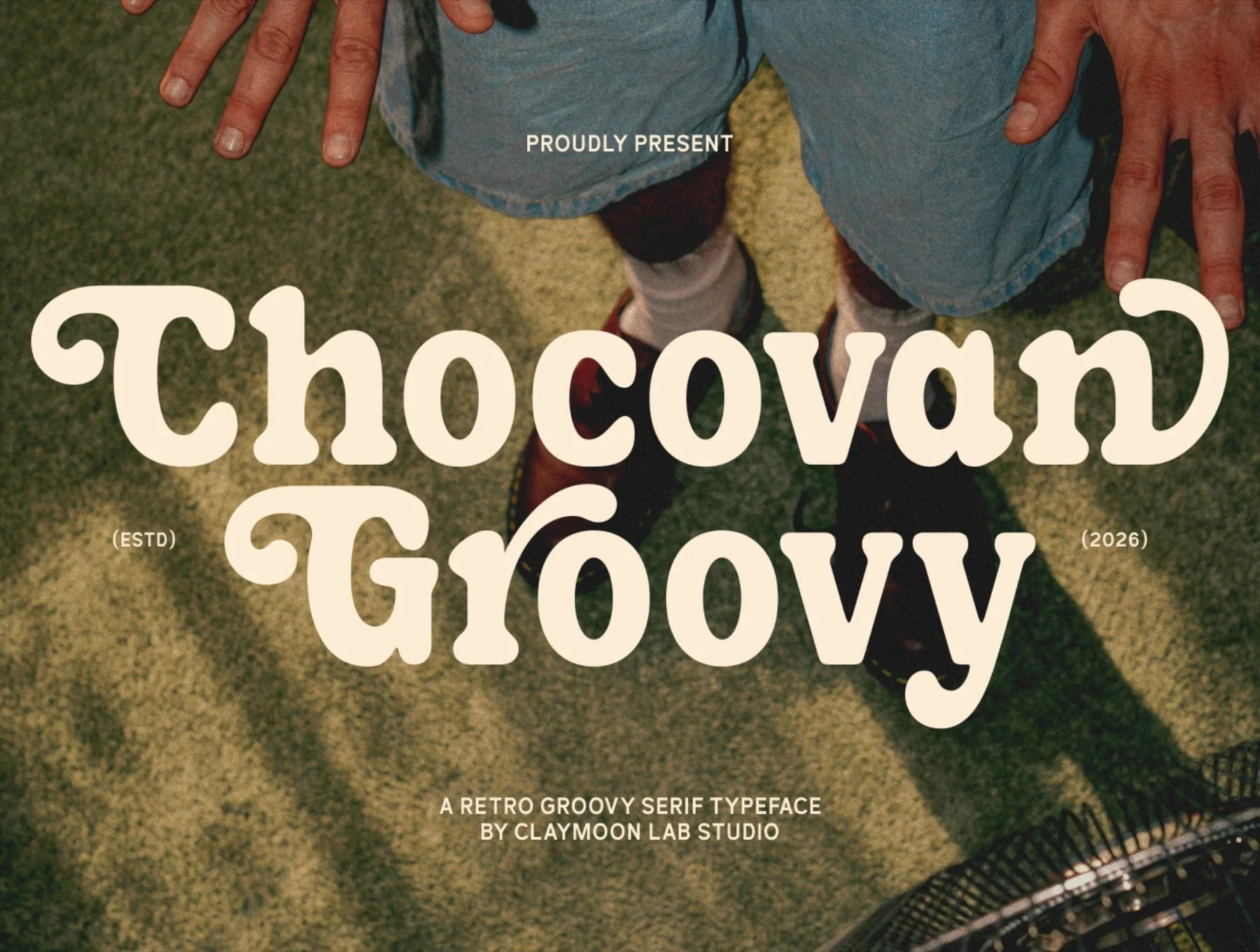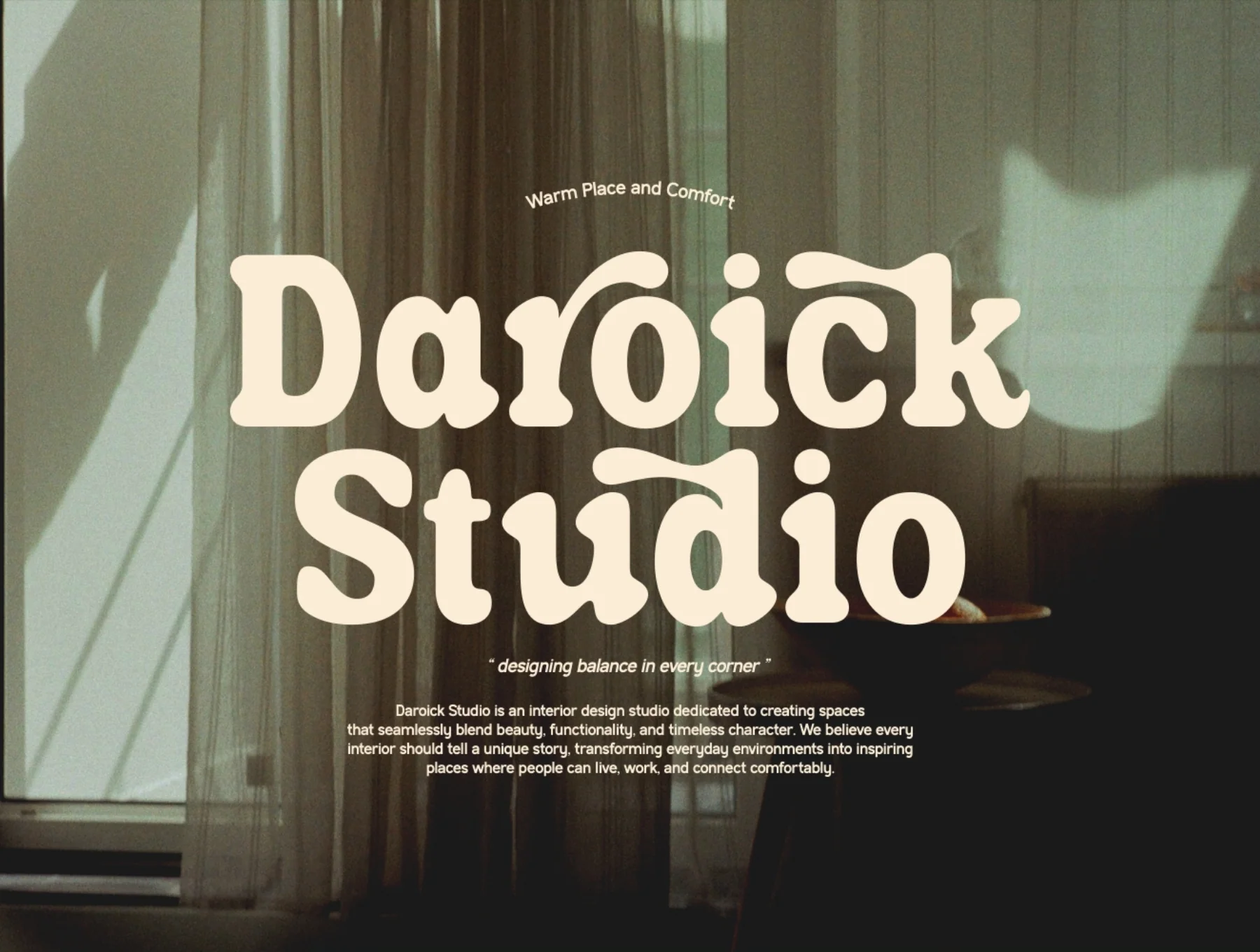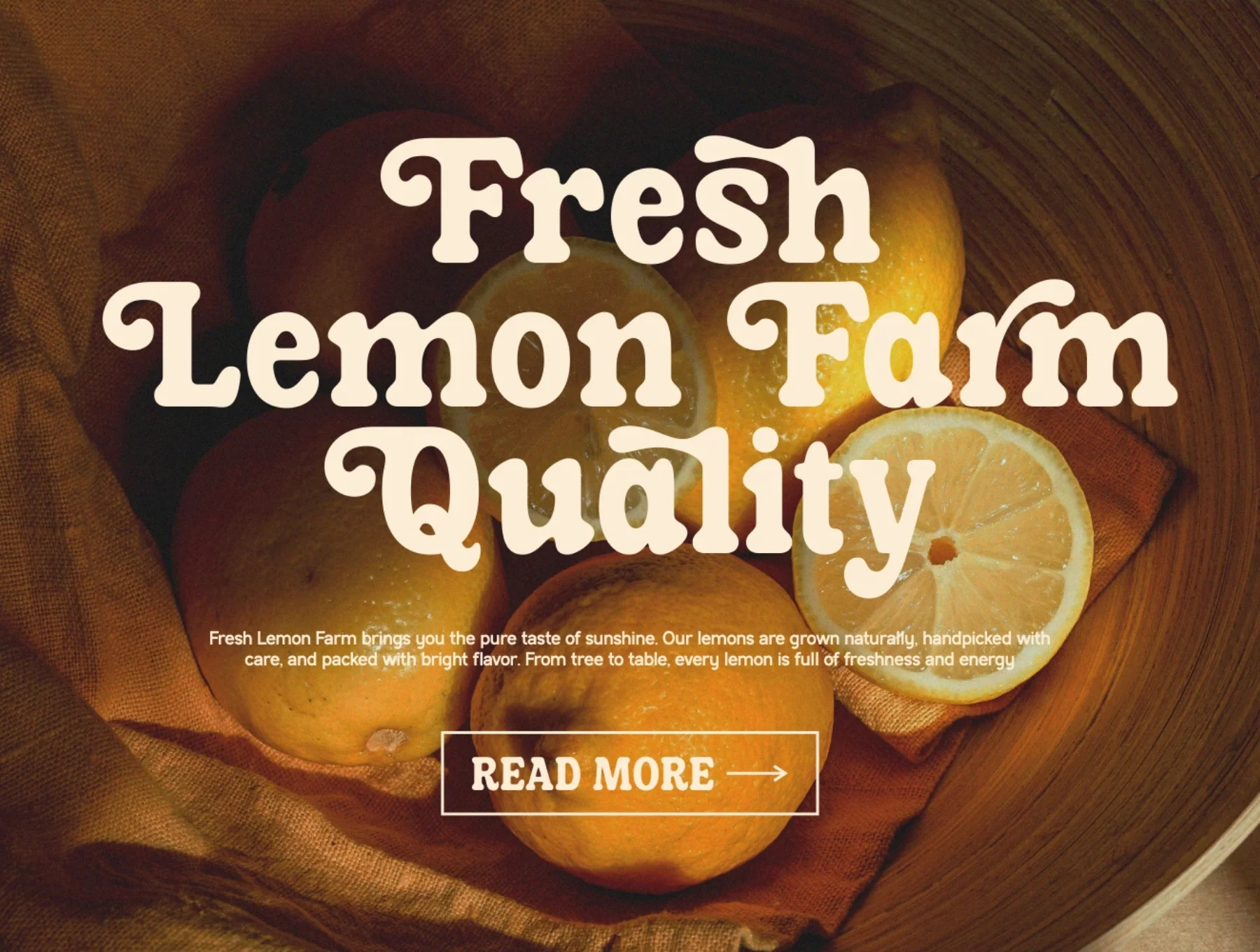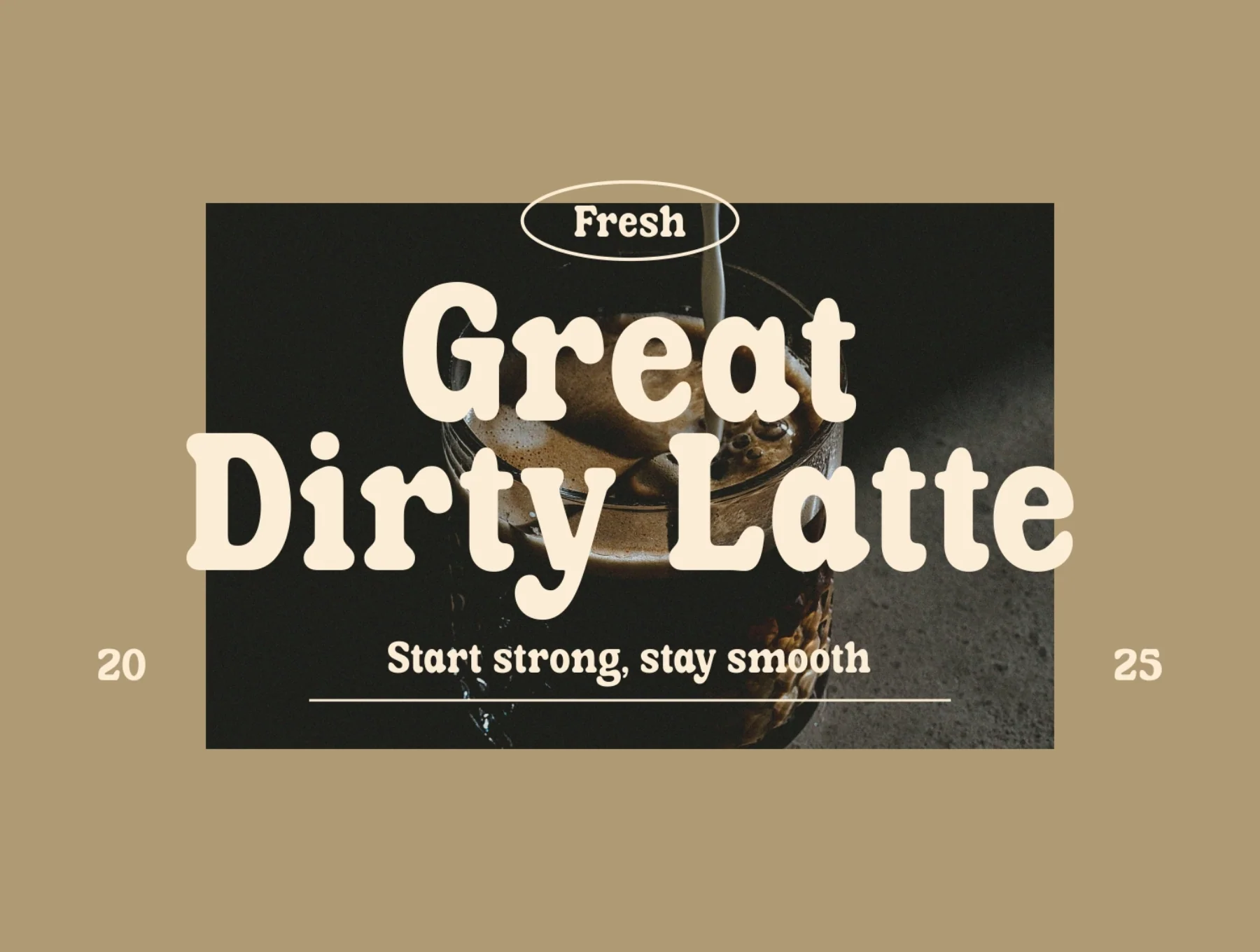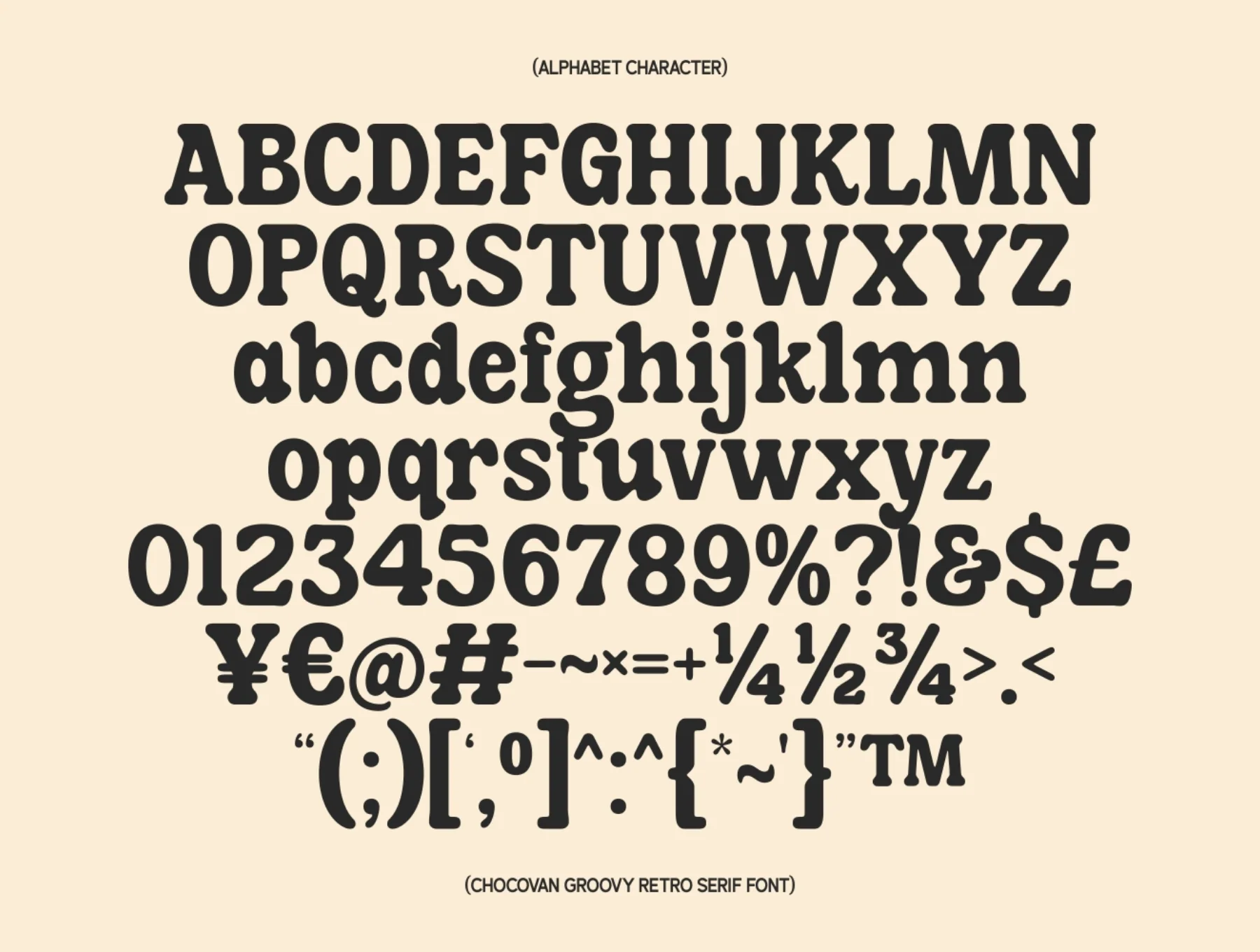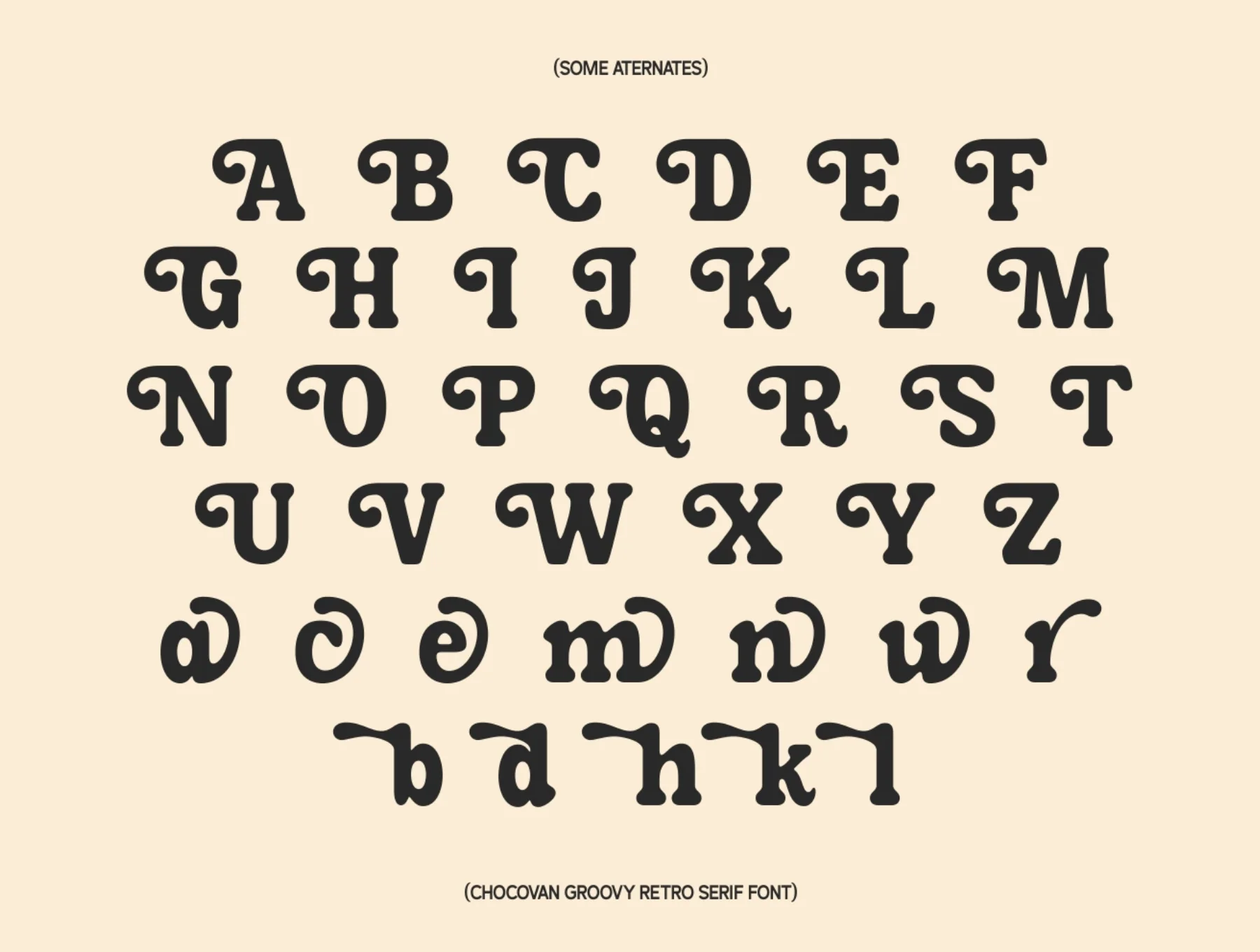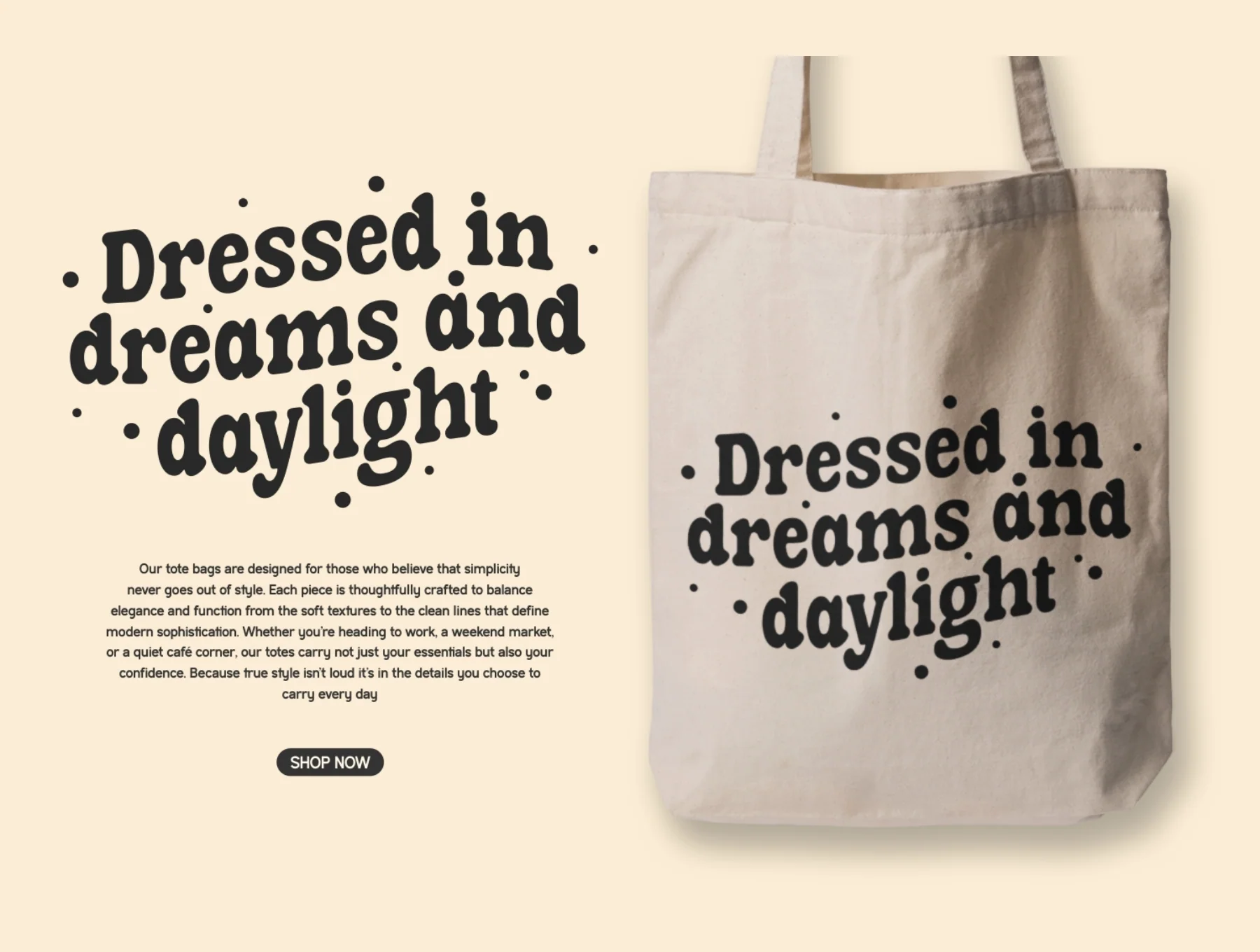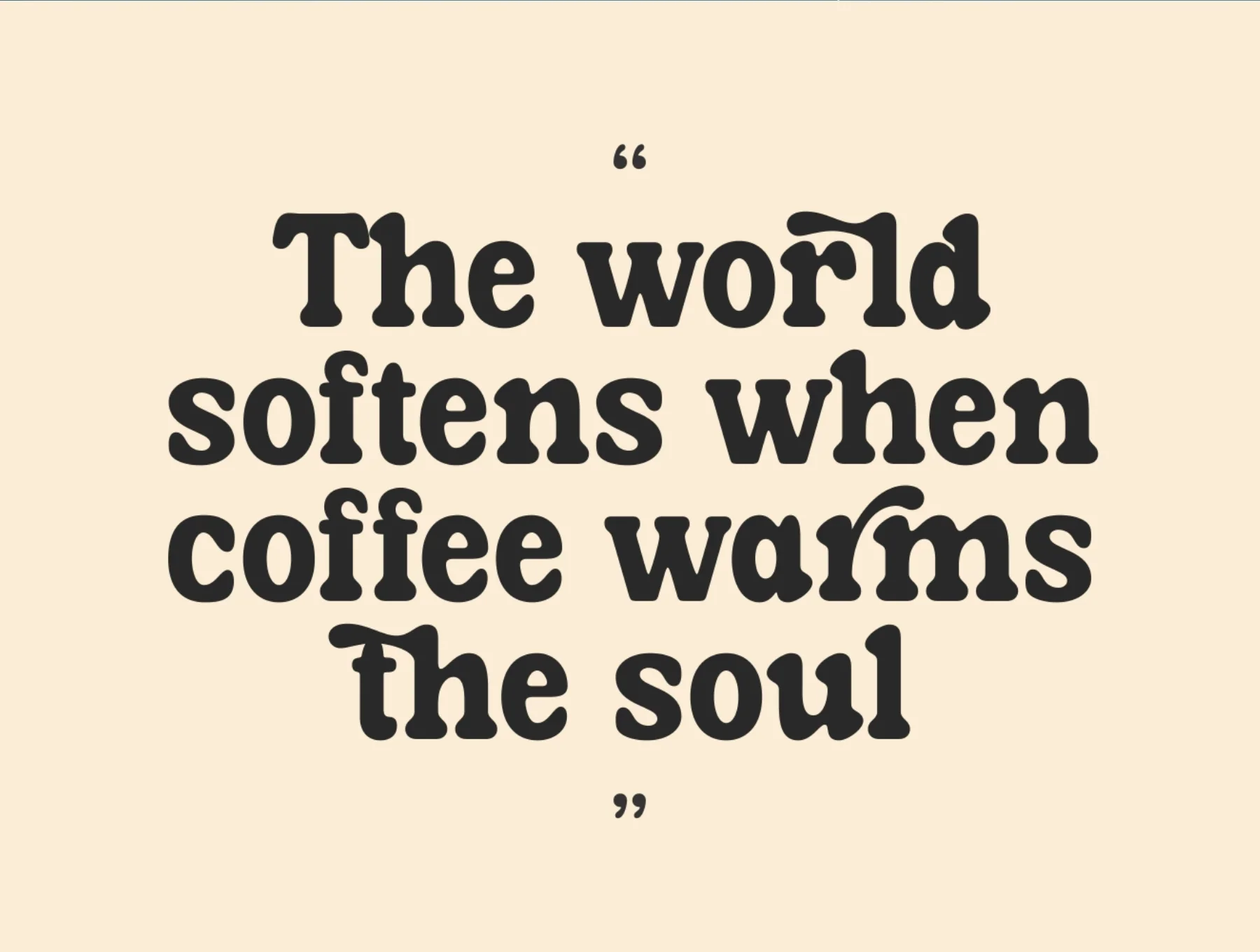
Chocovan Groovy — Retro Groovy Serif Typeface
Retro-inspired groovy serif font with alternates, multilingual support, and OTF, TTF, WOFF files
Chocovan Groovy is a warm retro serif inspired by 1970s style, with organic curves, swelling strokes, and playful terminals. It includes OTF, TTF, WOFF, full characters, punctuation, and rich stylistic alternates accessible through OpenType or Glyphs panels. Ideal for logos, branding, posters, editorial titles, social graphics, web headers, and retro digital designs.